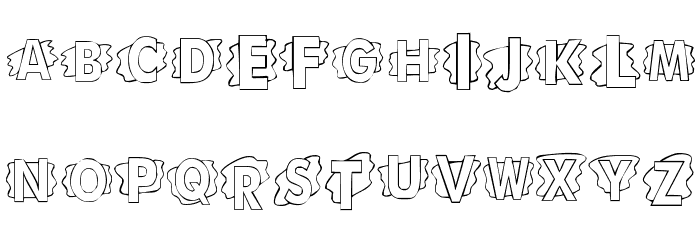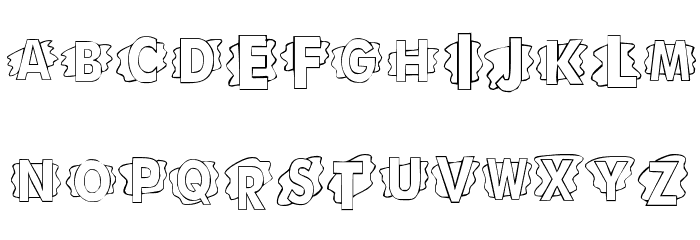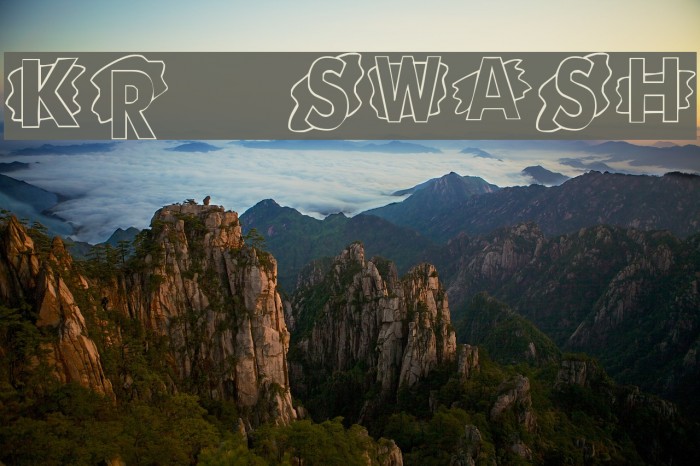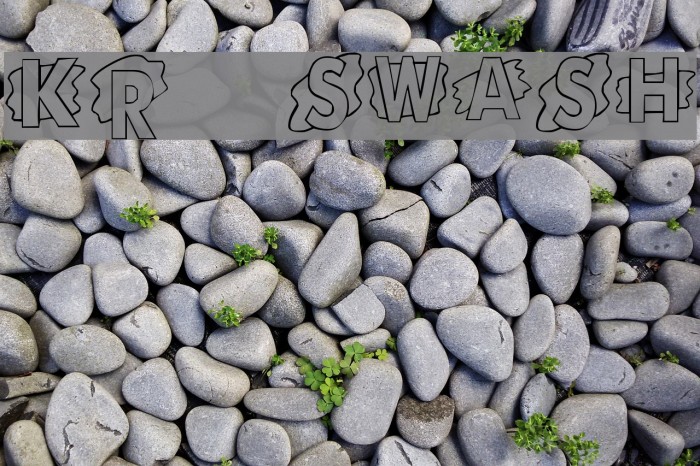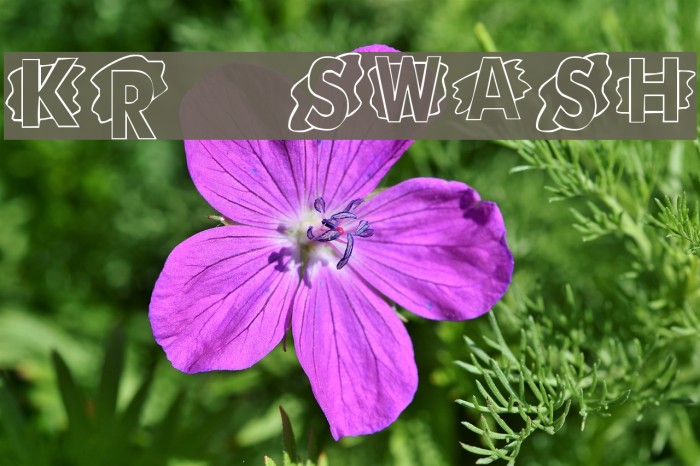
KR Swash Font
This font features a bold and decorative style with a unique swash element that adds a playful and artistic flair to each character. The uppercase letters are designed with an outline effect, creating a sense of depth and dimension. The characters are well-defined, with sharp edges and a consistent thickness throughout. The swash elements are integrated into the design, providing a whimsical touch that makes the font stand out. This font is ideal for creative projects that require a bold and eye-catching typeface.
A bold, decorative font with unique swash elements and an outline effect.
- Proposed Projects: Ideal for posters, logos, headlines, and any creative project that requires a standout typeface.